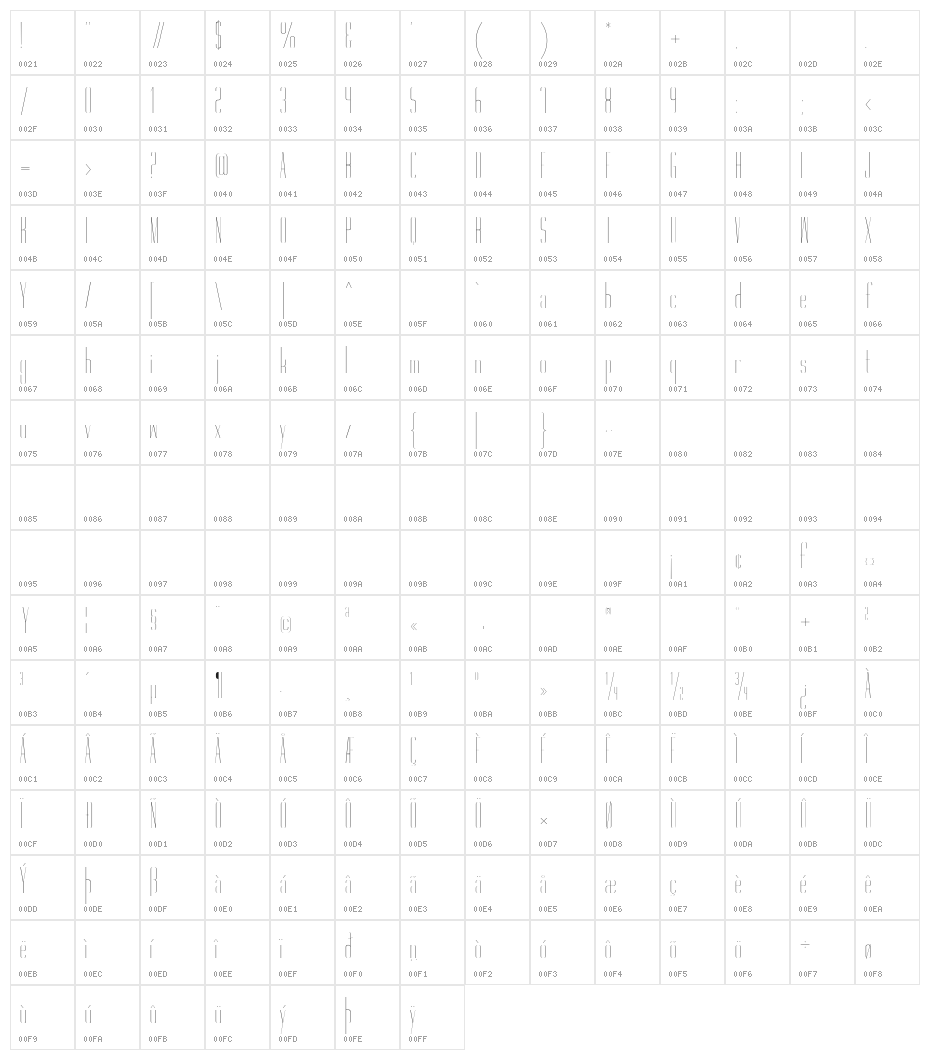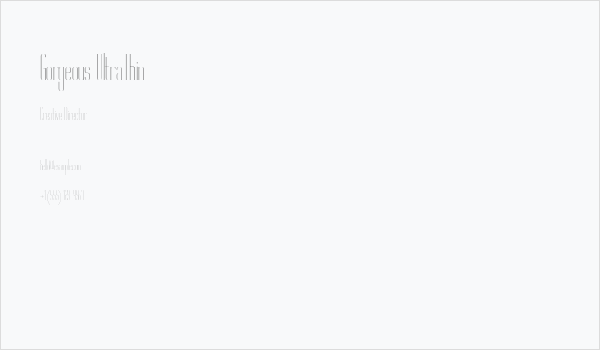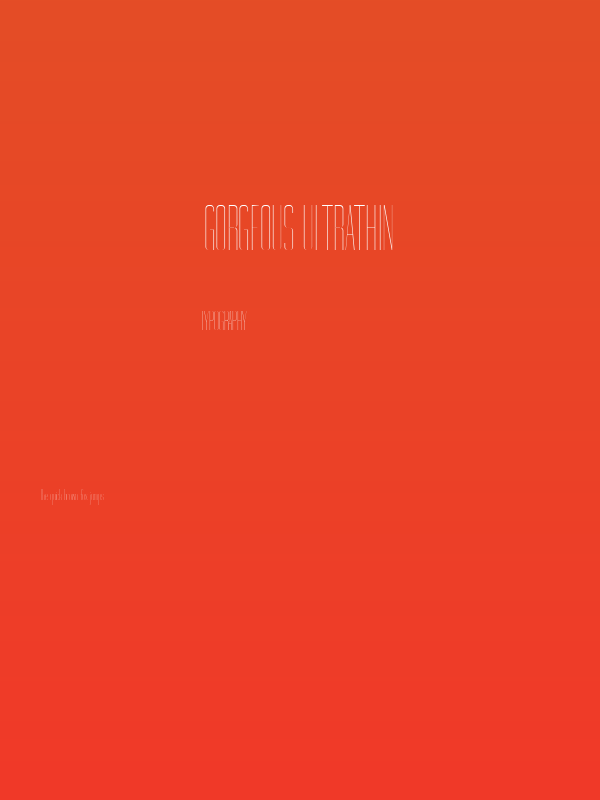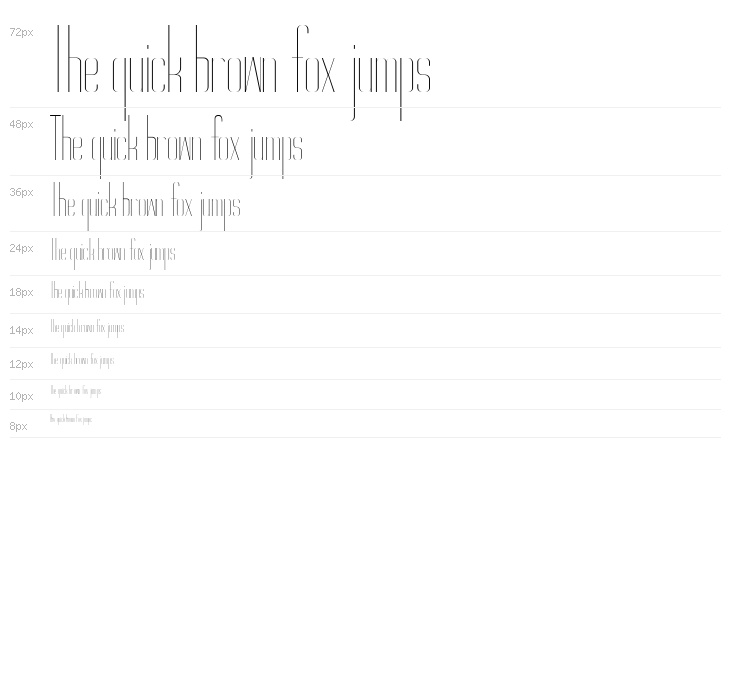
Gorgeous UltraThin Font
Gorgeous UltraThin Description
This font features an ultra-thin, elegant design with elongated characters and a modern aesthetic. The uppercase and lowercase letters maintain a consistent height, creating a sleek and uniform appearance. The numerals are similarly styled, with a minimalistic approach that enhances readability. Special characters are included, maintaining the same thin strokes and contemporary feel. The overall design is clean and sophisticated, making it suitable for projects that require a touch of elegance and modernity.
Proposed ProjectsIdeal for luxury branding, high-end fashion magazines, minimalist design projects, and modern art exhibitions.